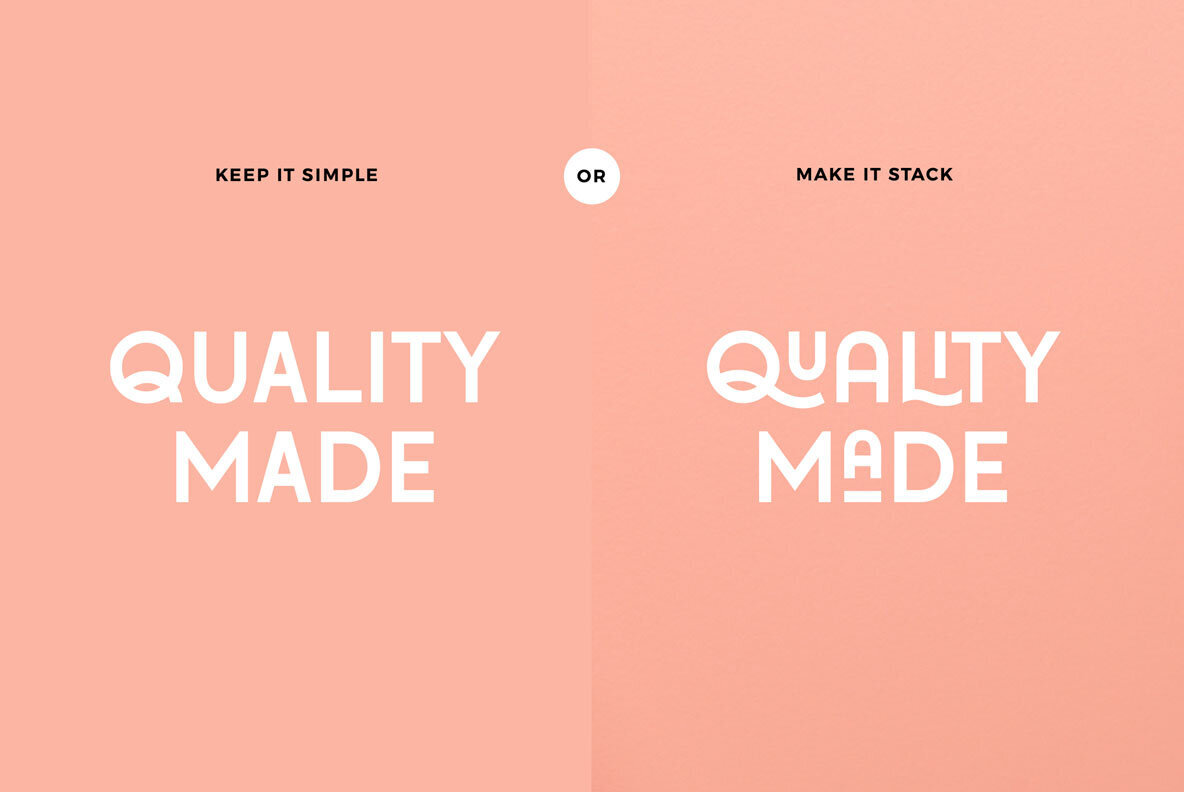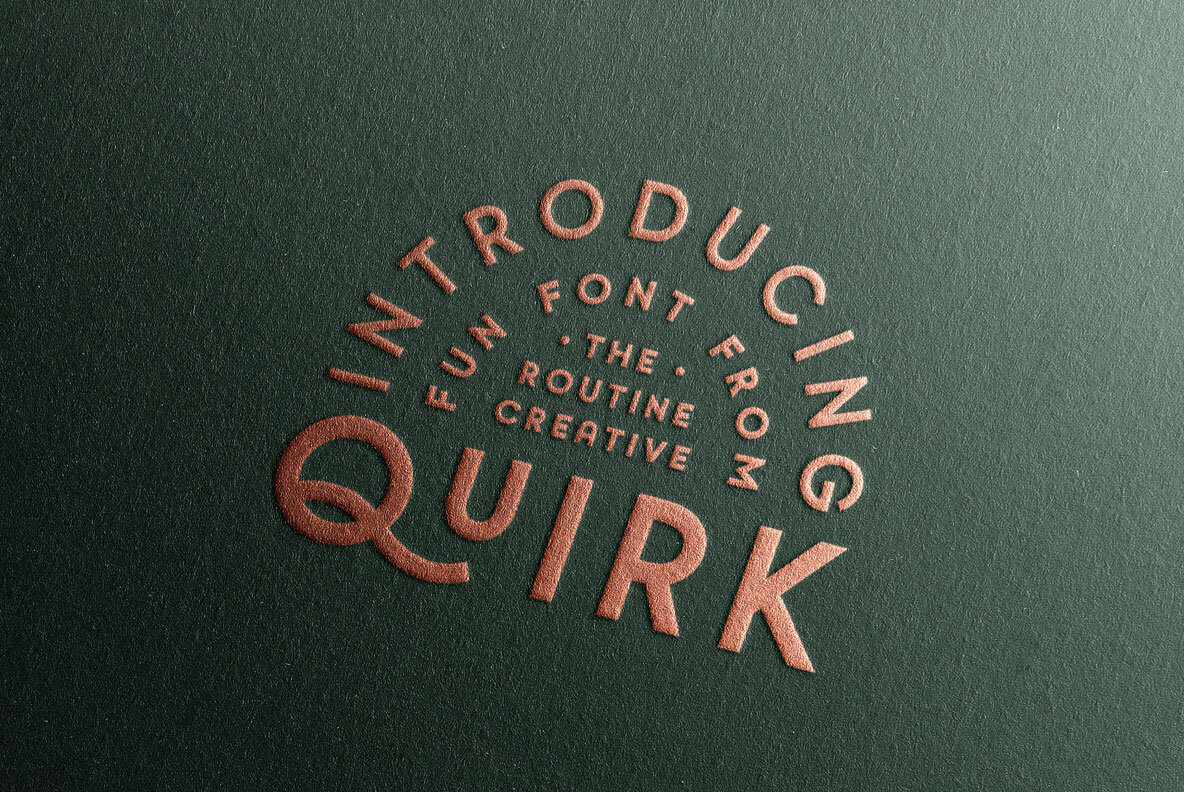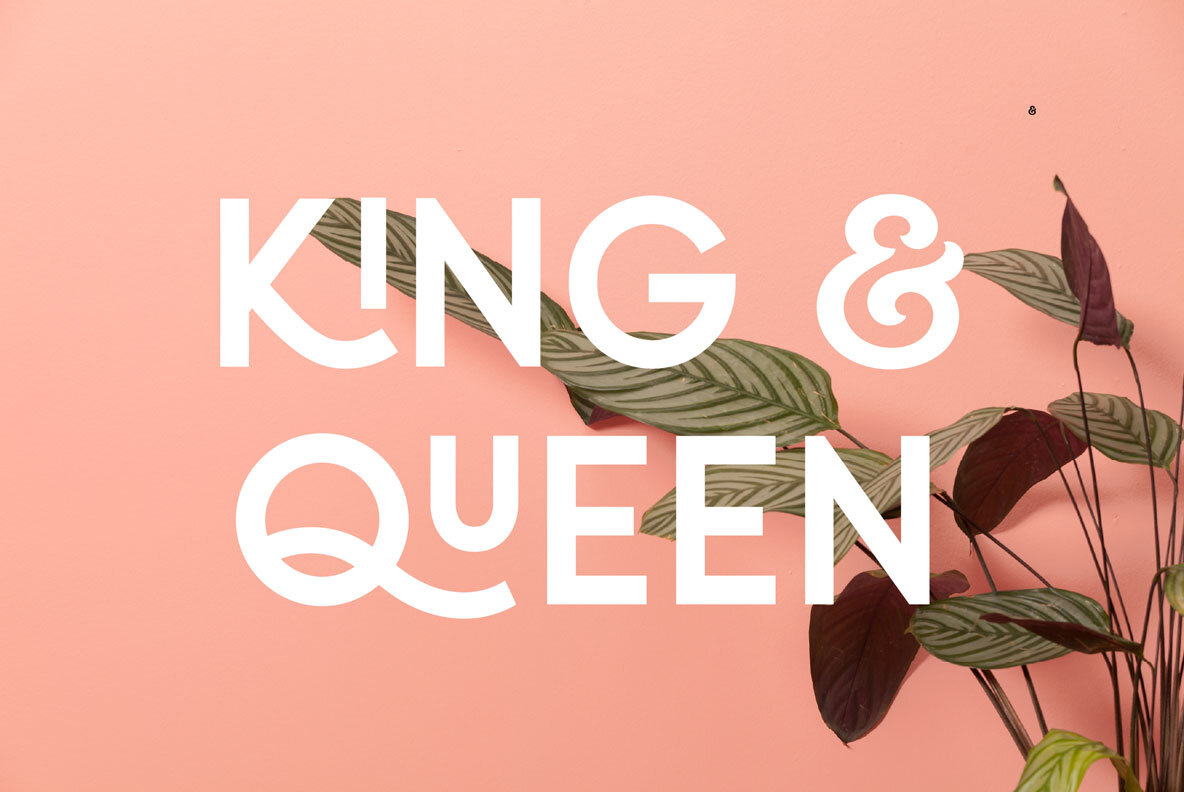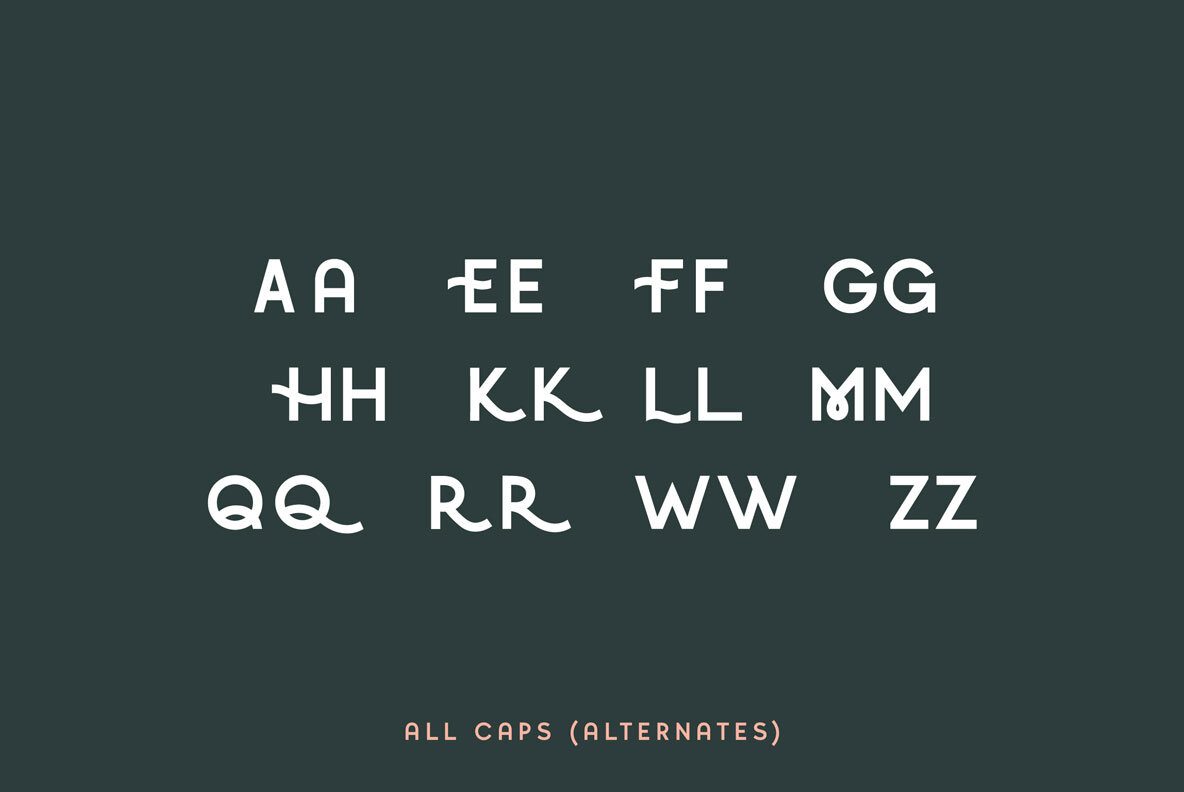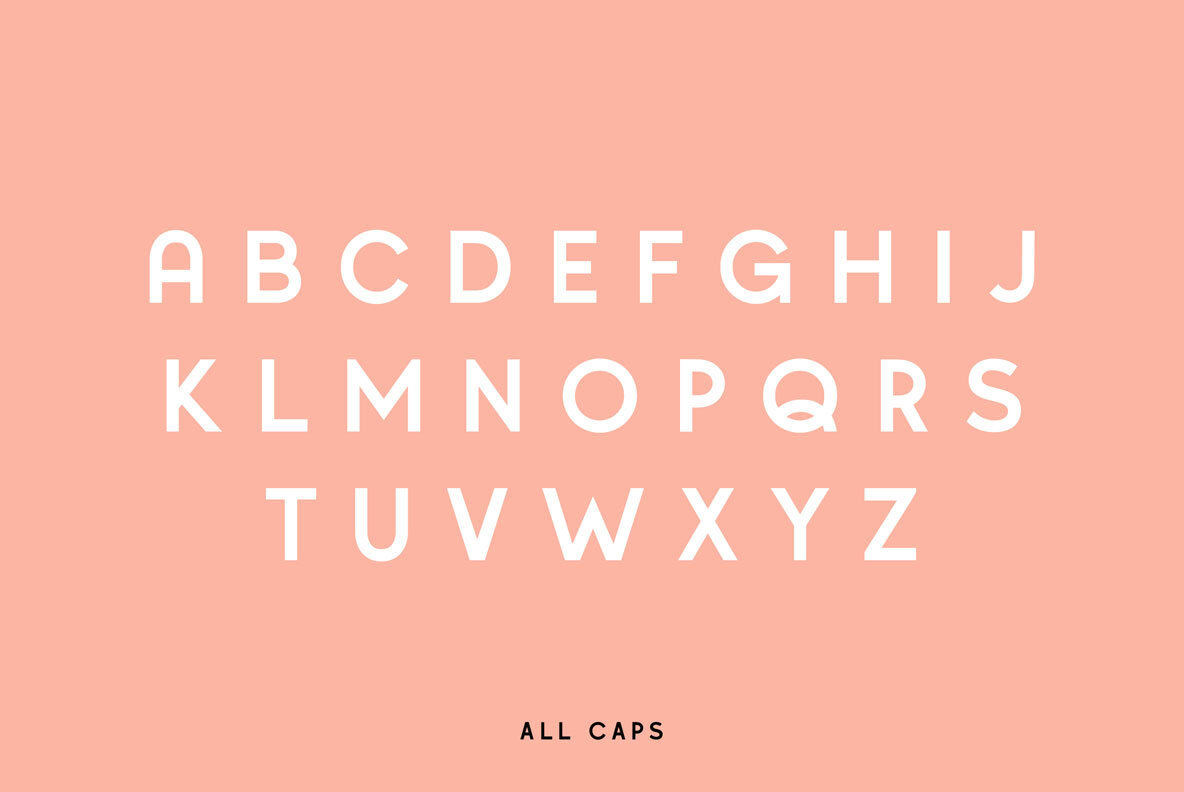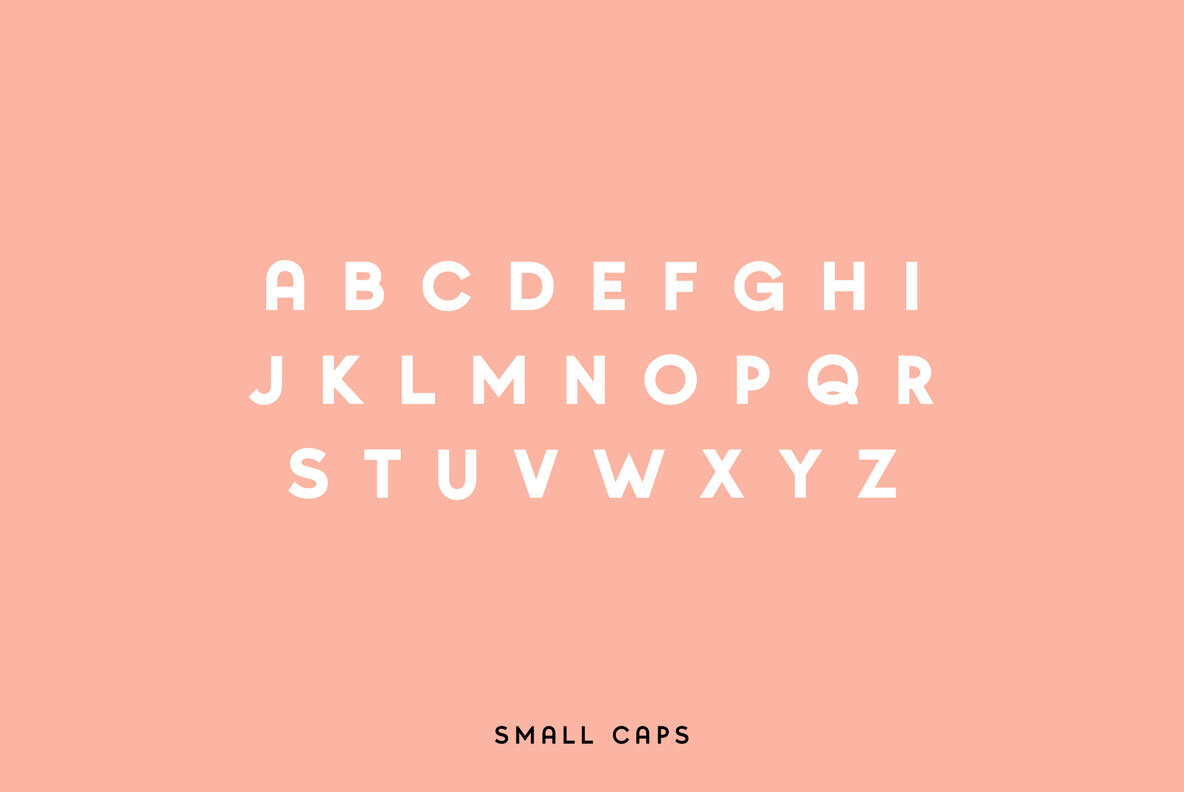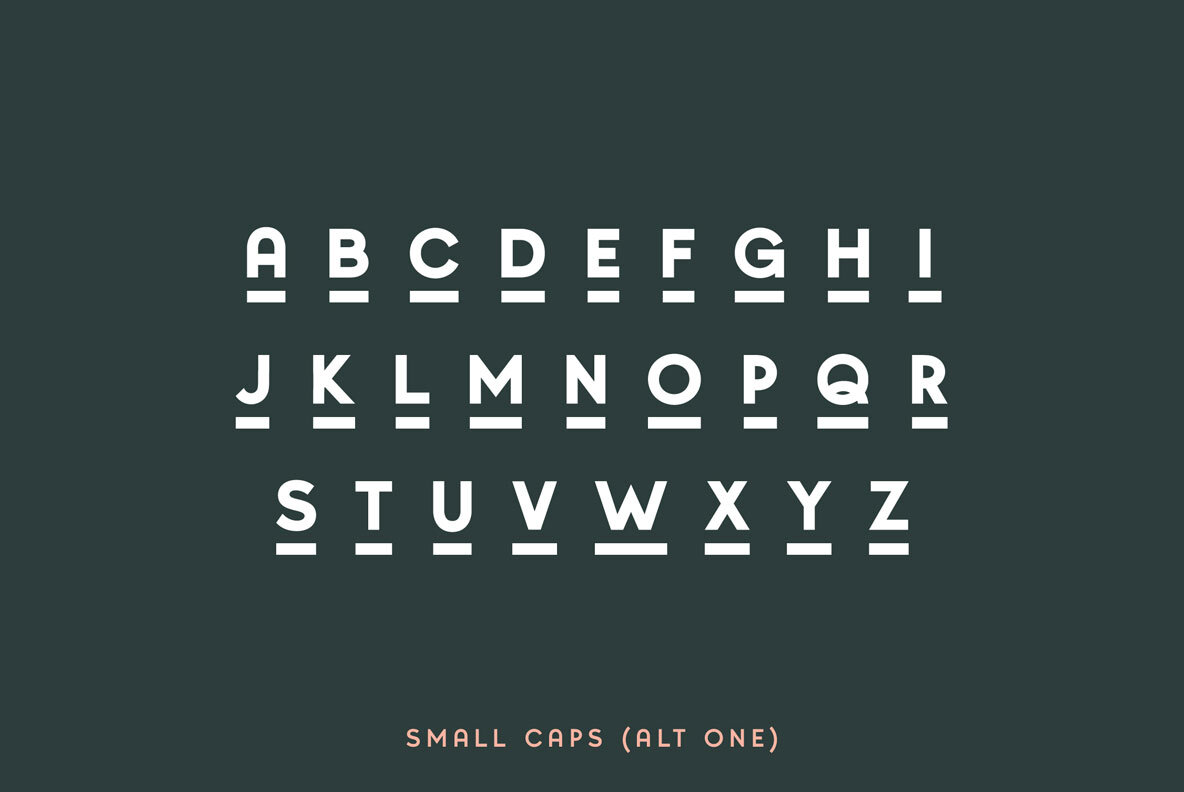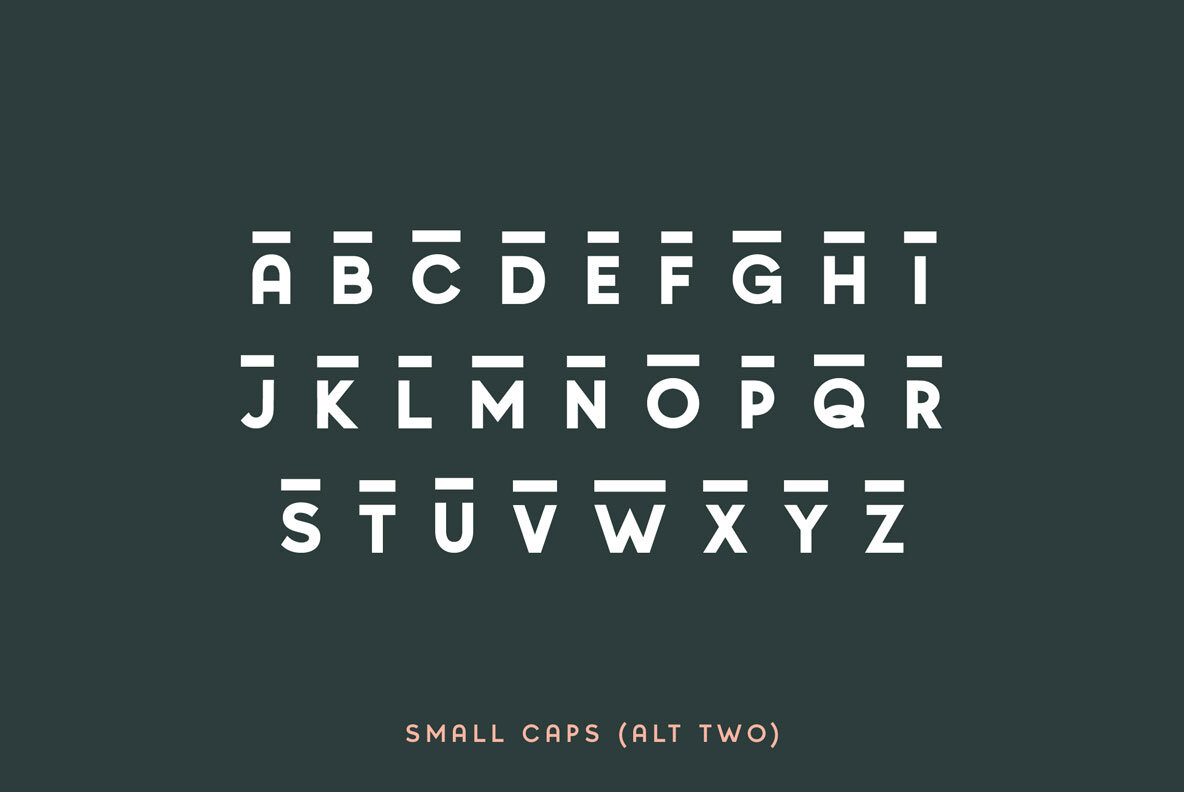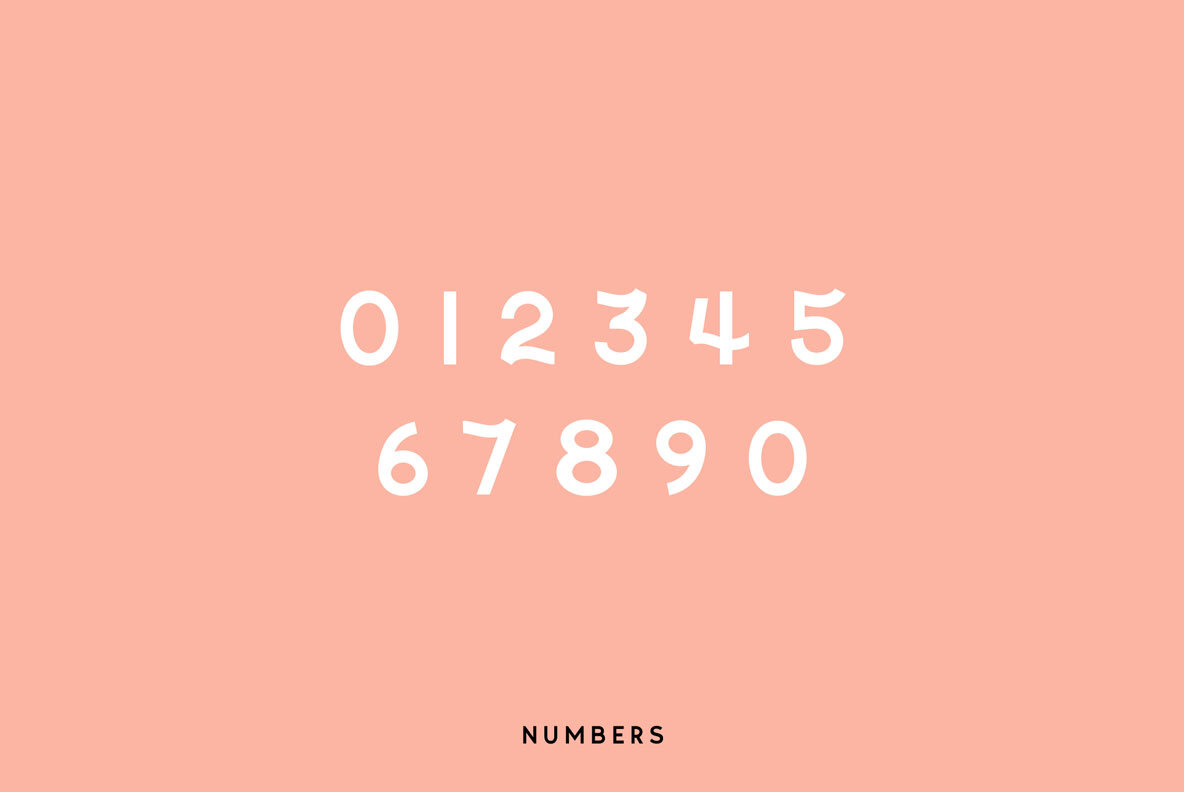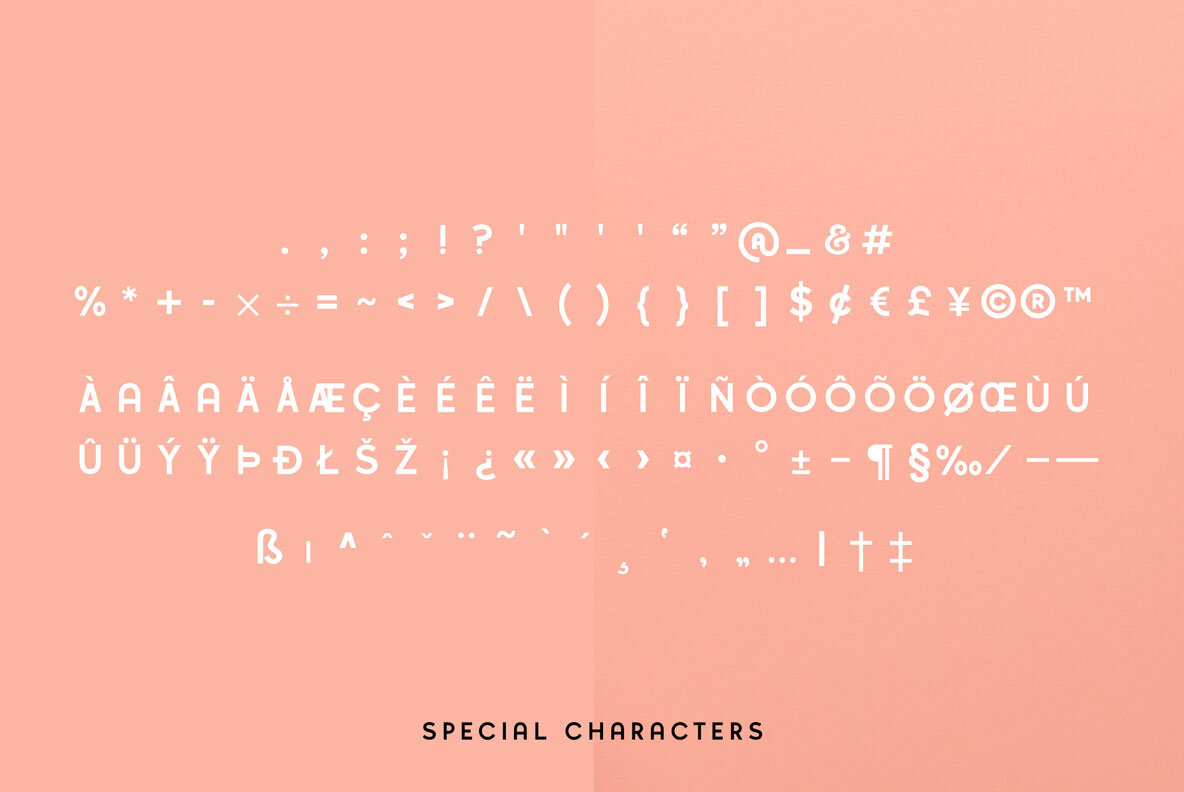
Quirk Font
Quirk Regular
A fun and fresh display font that lives up to its name. “How’s that?”, you ask. Quirk is extremely versatile by way of stackable characters. Can your font do that? It surely can . . . if this is your font. Quirk is super fun to work with, pairs well with bold sans serifs and is perfect for all purposes. What’s not to love?